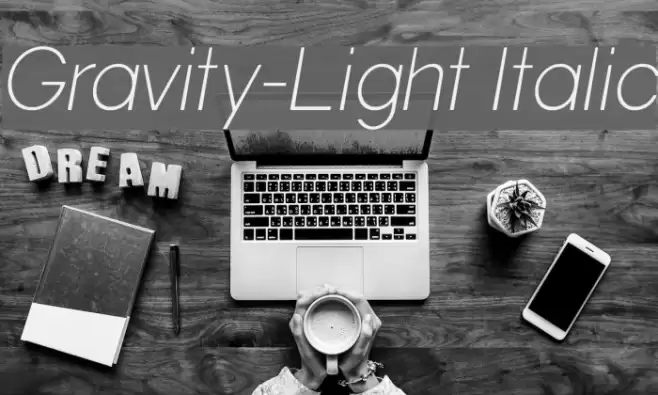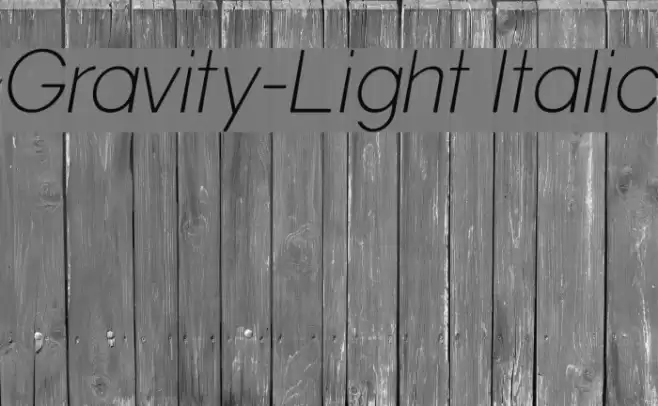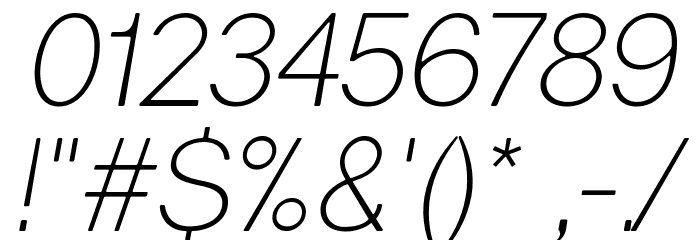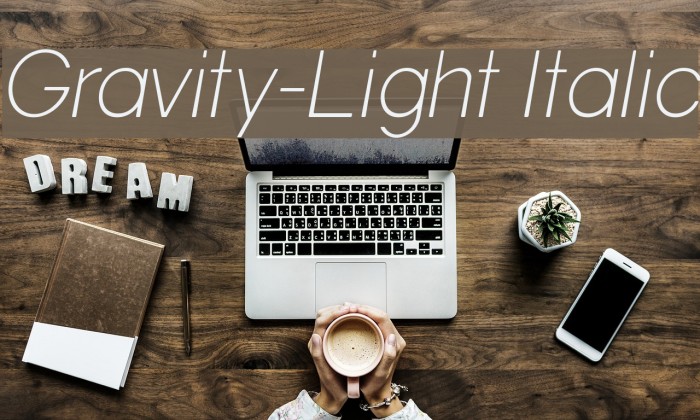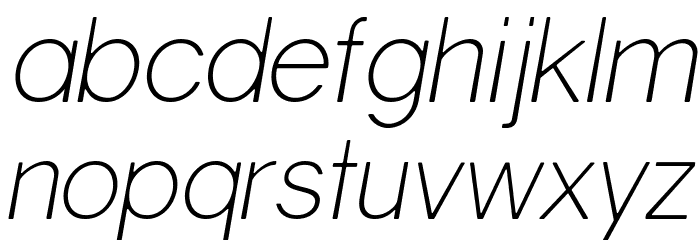
Gravity-Light Italic Font
Gravity-Light Italic Description
This font presents a sleek and modern aesthetic with its light and italicized form. The characters are elegantly slanted, providing a sense of motion and fluidity. The strokes are thin, contributing to a clean and minimalist appearance. The uppercase and lowercase letters maintain a consistent style, with smooth curves and sharp edges that enhance readability. The numerals are well-proportioned, aligning seamlessly with the overall design. Special characters are crafted with the same attention to detail, ensuring uniformity across all elements. This font's refined and contemporary look makes it versatile for various design applications.
A sleek, modern, and italicized font with thin strokes and a minimalist style from Uncategorized fonts.